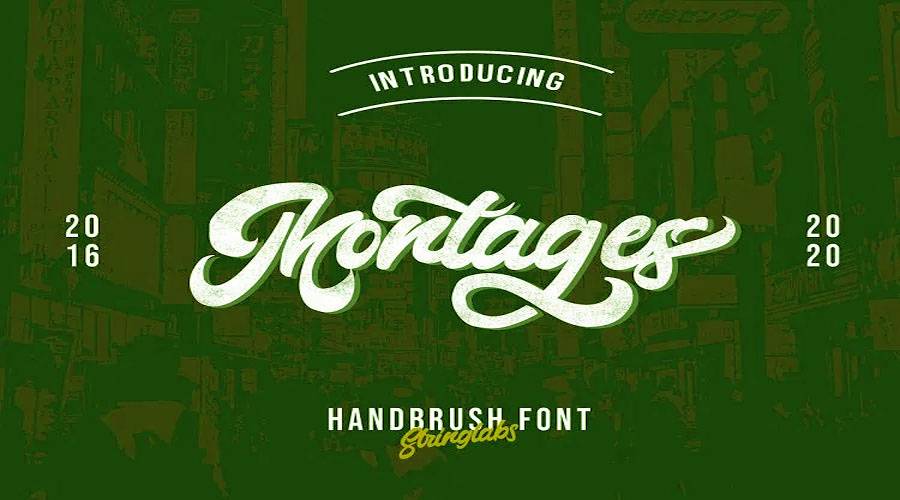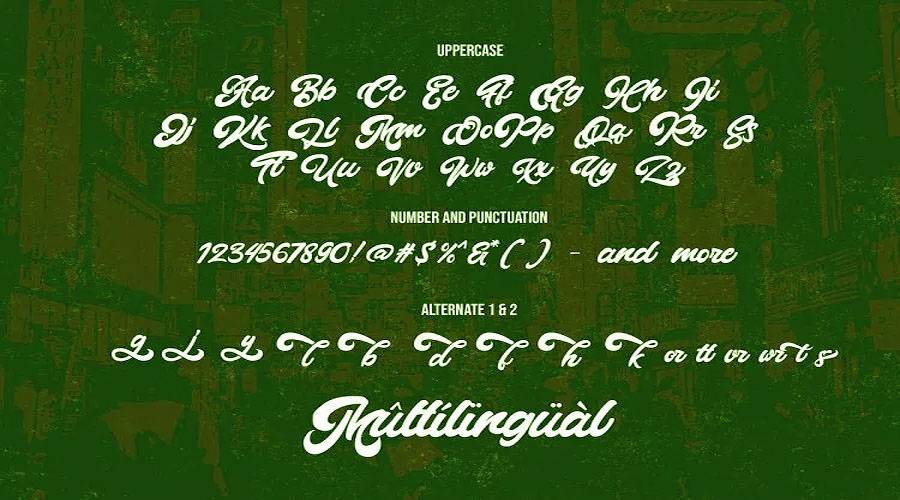
Montages Retro Bold Script Font- Download Free
Montages Retro Bold Script is a retro script font by Vector, released on March 30, 2020. It comes in TTF, OTF and WOFF formats and includes stylistic alternates and ligatures. It suits retro-style logos, shop signs and bold headlines.
About the Montages Retro Bold Script font
The style is a retro script with a 1980s feel. It looks stylish, vintage and a little sporty, so it fits old-school logo ideas and throwback designs.
Designers often pick it for barbershops, clothing brands, cafés and club logos. It works best in short phrases, such as a name, a title or a single word.
• Stylistic Alternate
• Ligatures
• Uppercase and Lowercase letters
NameMontages Retro Bold Script Font
StyleRetro, Script
DesignerVector